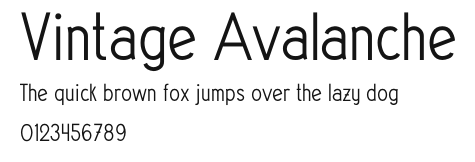
About Vintage Avalanche.otf
Vintage Avalanche.otf is a modern, elegant sans-serif font designed for ultimate readability and visual harmony. Perfect for branding, headlines, web design, and print materials.